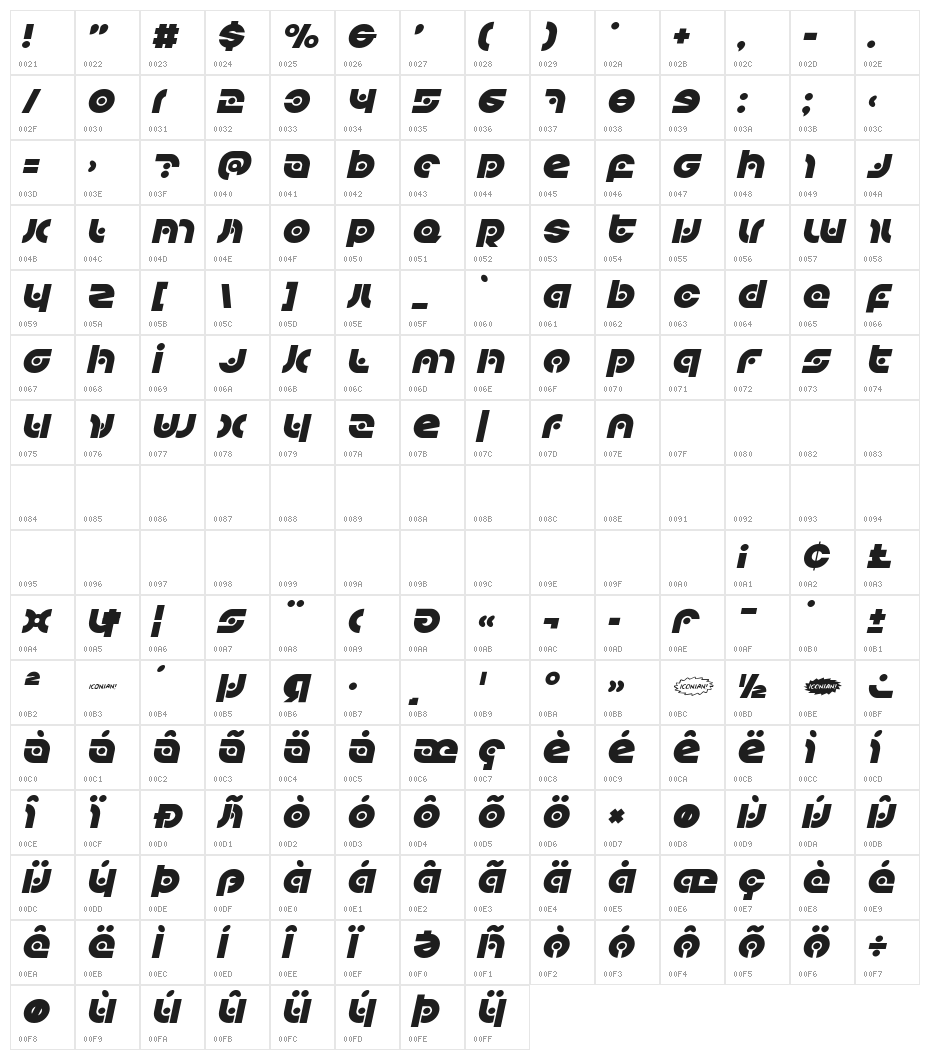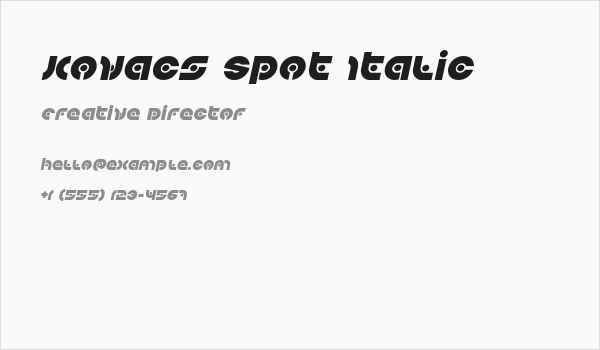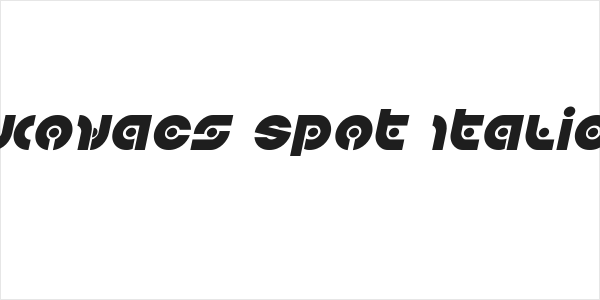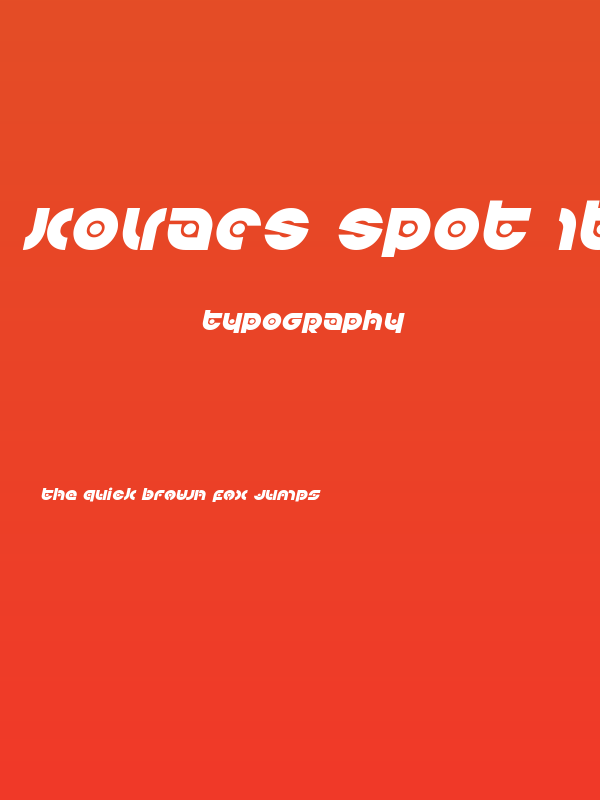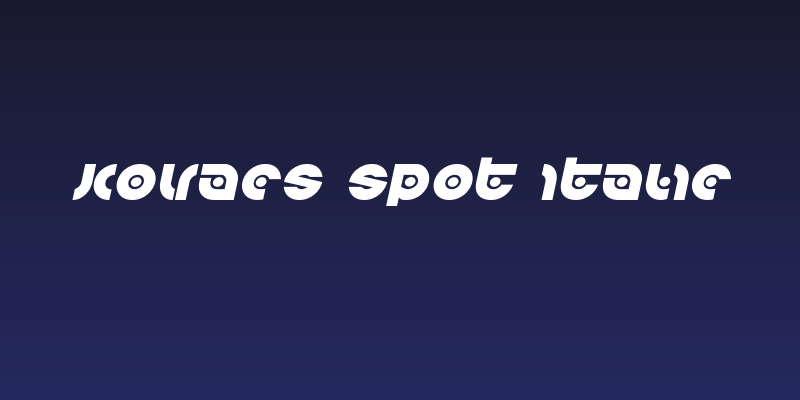
Kovacs Spot Italic Font
Kovacs Spot Italic Description
This font exhibits a bold and futuristic design with a distinct geometric style. The characters are crafted with a unique blend of curves and sharp angles, creating a dynamic and modern appearance. The italic slant adds a sense of motion and energy, making it stand out. Each letter is designed with a consistent stroke width, contributing to a cohesive and balanced look. The font's boldness and distinctive style make it suitable for attention-grabbing headlines and creative projects. The special characters maintain the same geometric and bold aesthetic, ensuring uniformity across all glyphs.
Overall StyleFuturistic
Proposed ProjectsIdeal for sci-fi themed designs, modern branding, posters, and digital artwork.